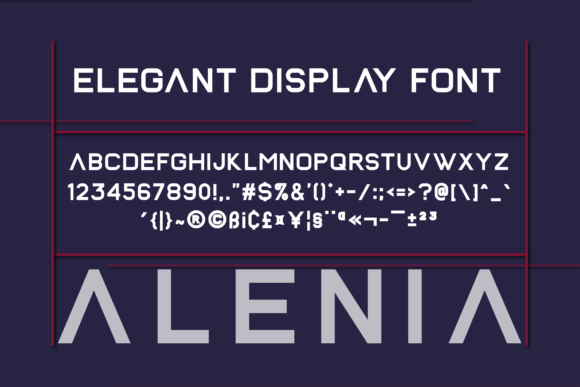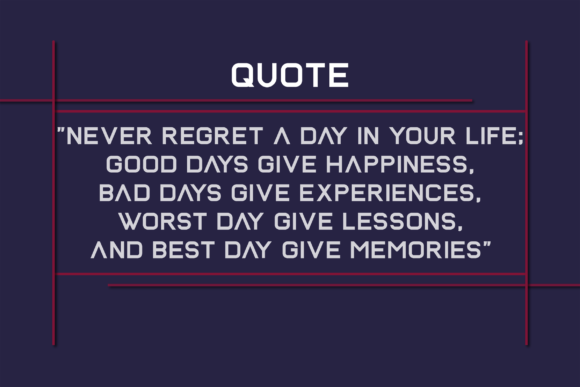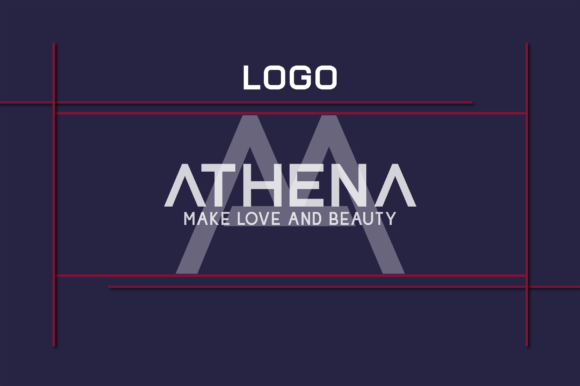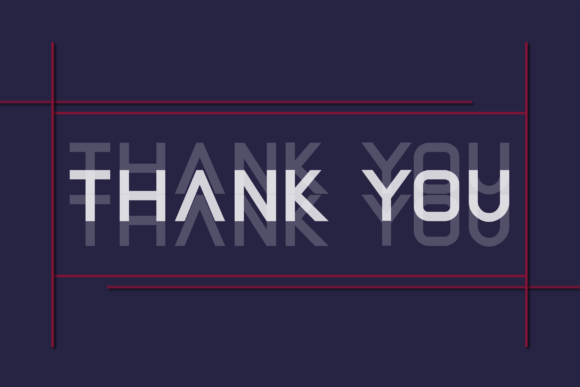
Have you ever stared at a blank canvas, waiting for the perfect idea to strike? It’s that moment of creative clarity when everything falls into place, and your vision begins to take shape. For designers, this moment is all too familiar – and it’s exactly what Alenia Font is designed to inspire. With its sleek, modern aesthetic, this display font is the ultimate game-changer for any design project.
Alenia Font is more than just a font – it’s a tool that can elevate your work to new heights. Whether you’re working on a logo, brochure, or social media campaign, Alenia Font is the perfect addition to take your designs to the next level. Its unique feel and sophisticated look make it a valuable asset for any designer looking to make a lasting impression.
Alenia Font Key Features
- Font Family: Alenia Font is a sans-serif font family designed for digital use.
- Unique Characteristics: Alenia Font features a clean and modern design, with a focus on legibility and readability in digital environments.
Alenia Font Review
First off, let me say that I was genuinely excited to dive into the Alenia Font. Here are a few things that stood out to me: ✨ The font’s elegant, modern aesthetic is perfect for any high-end project or luxury brand. ✨ The extensive character set and language support make it an excellent choice for global audiences. ✨ The OpenType features and ligatures add a level of sophistication and polish to any text.
However, there are a few limitations to consider: ⚠️ The font’s thin lines can make it prone to readability issues, especially at smaller sizes. ⚠️ The font’s high-end feel can come across as overly pretentious or exclusive if not used carefully. ⚠️ The font’s extensive features can be overwhelming for less experienced designers.
In conclusion, the Alenia Font is a solid choice for any designer looking to add a touch of luxury to their project. While it has its limitations, the benefits far outweigh the drawbacks. With careful consideration and use, the Alenia Font can elevate any design to new heights.
- Use the Alenia Font sparingly to avoid overwhelming the viewer.
- Pair the font with a clean, simple background to maximize readability.
- Experiment with different OpenType features to add unique flair to your design.
For best results, use Alenia Font for titles and headings to add a touch of elegance and sophistication to your design.
Alenia Font is ideal for:
1. Creative and artistic projects.
2. Luxury and high-end branding.
3. Editorial and publishing projects.
For best results, use Alenia Font in combination with other elegant and sophisticated fonts to create a cohesive and stylish design.
What is the recommended font size and line height for Alenia Font?
For optimal readability, we recommend a font size of 14-16 pixels and a line height of 1.2-1.5 times the font size. This will ensure that your text remains clear and easy to read on various devices and screen resolutions.